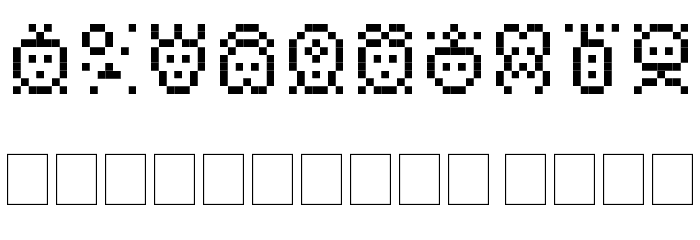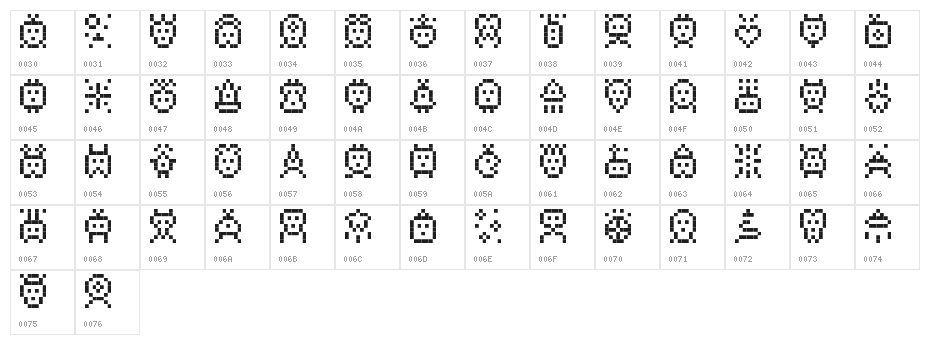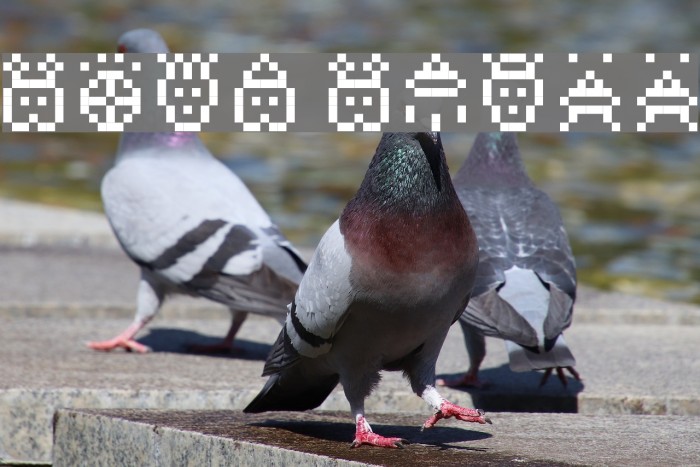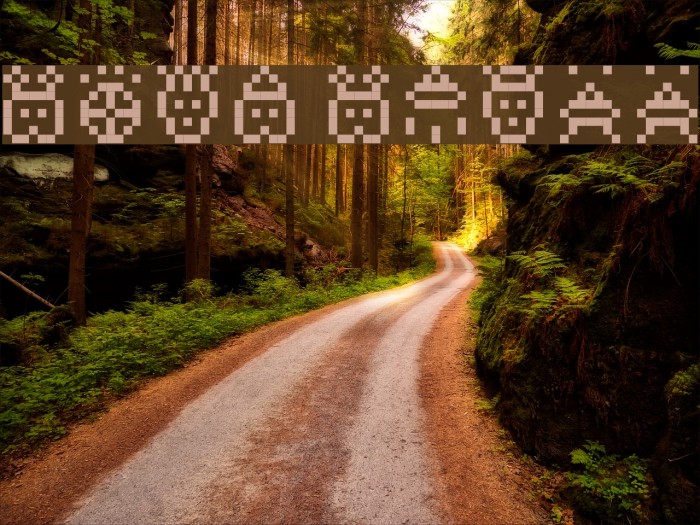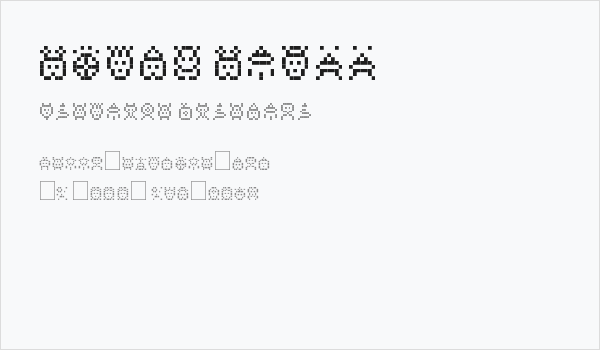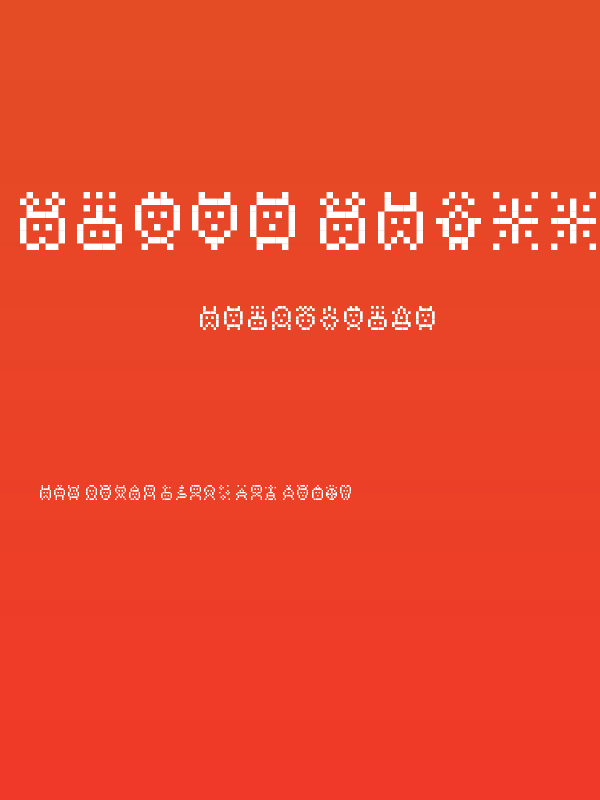
Spacy Stuff Font
Spacy Stuff Description
This font features a playful and whimsical design with characters resembling pixelated alien or robot faces. Each character is crafted with a grid-like structure, giving it a retro, digital appearance reminiscent of early video game graphics. The font is highly decorative, with each letter and symbol designed to look like a unique creature or face, making it ideal for creative and fun projects. The characters are evenly spaced, maintaining a consistent and balanced look across the board. The overall style is distinctly modern with a nod to vintage pixel art, making it suitable for projects that aim to capture a sense of nostalgia while remaining contemporary.
| Overall Style | Modern, Vintage |
| Use Case | Logos, Posters, Creative Projects |
| Proposed Projects | Ideal for video game design, children's books, creative posters, and any project requiring a fun, retro aesthetic. |